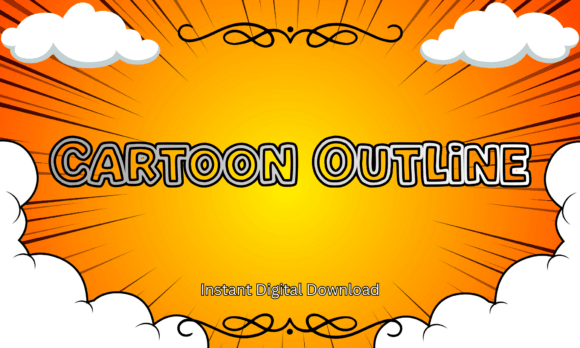
Bringing Cartoonish Charm to Your Designs: A Deep Dive into Cartoon Outline Font
Have you ever been in the middle of a design project, and suddenly, you just can’t seem to find the right font? You’re aiming for that perfect blend of fun, playfulness, and boldness, but everything you try seems to fall flat. I recall a particularly frustrating experience while working on a children’s book project. My client wanted a font that would bring their characters to life, but nothing I tried seemed quite right. That’s when I stumbled upon the Cartoon Outline Font, and it completely transformed my design.
The Perfect Font for Playful Designs
The Cartoon Outline Font is a game-changer for anyone looking to add a bold, fun, and playful personality to their designs. With its thick outlines and rounded cartoon lettering, this font is perfect for a wide range of projects, from comic-style graphics and kids’ designs to stickers, signs, and eye-catching titles. The clean outline style makes it easy to layer colors, add shadows, or use it for print-and-cut projects.
What I Love About Cartoon Outline Font
- ✨ Versatility: This font is incredibly versatile and can be used for various projects, from digital designs to print materials.
- ✅ Ease of Use: The font is easy to work with, and its clean outline style makes it simple to customize.
- 🎉 Fun and Playful: The Cartoon Outline Font is perfect for designs that require a cheerful and energetic touch.
While the Cartoon Outline Font is an excellent choice for many projects, there are a few minor quirks to be aware of:
- 🤔 Limited Formality: As a playful font, it may not be the best choice for formal or professional designs.
- ⚠️ Legibility at Small Sizes: Like many outline fonts, it may lose legibility when used at very small sizes.
The Cartoon Outline Font comes with a range of OpenType features and glyphs that can enhance your designs. These include:
- Stylistic Alternates: Swappable letterforms for added variety.
- Ligatures: Special character combinations for improved readability.
- Glyphs: Additional characters and symbols to expand your design possibilities.
The Story Behind Cartoon Outline Font
The Cartoon Outline Font was created with the goal of bringing a fun, playful spirit to designs. Inspired by classic cartoons and comics, this font is perfect for creators who want to add a touch of whimsy to their work.
Q: Is the Cartoon Outline Font suitable for print projects?
A: Absolutely! The font’s clean outline style makes it perfect for print-and-cut projects, stickers, signs, and more.